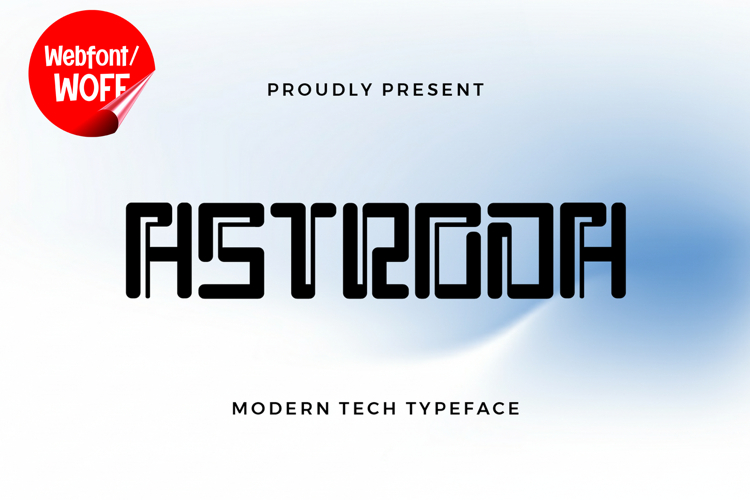
Astroda | Modern Futuristic Webfont for Sleek Digital Design
Astroda is a modern and futuristic webfont crafted to bring a sleek, innovative, and high-tech aesthetic into contemporary website design. Inspired by digital interfaces, space-age visuals, and forward-thinking design trends, this font features clean geometry and refined shapes that create a sharp and professional appearance. It is an excellent choice for projects that require a modern, minimal, and cutting-edge typographic style.
Astroda includes a complete set of uppercase characters designed with a futuristic structure. The letterforms are built with precise lines and balanced proportions, giving the font a clean and sophisticated look. These characteristics make it ideal for headlines, banners, hero sections, and featured content where clarity and visual impact are essential. The modern style helps establish a strong and organized visual hierarchy.
In addition to letters, the font includes numbers and punctuation, allowing flexible usage across various parts of a website. It works well for technology branding, product showcases, dashboards, user interfaces, and promotional content. Each character maintains a consistent futuristic style, ensuring a cohesive and unified visual identity throughout the layout.
With multilingual support, Astroda includes a wide range of accented characters, making it suitable for international websites and global audiences. This allows content to be displayed clearly across different languages while maintaining the clean and modern aesthetic.
The modern futuristic style of Astroda makes it especially suitable for tech startups, SaaS platforms, digital products, creative portfolios, and innovation-driven brands. Its sleek and minimal appearance adds a sense of precision and professionalism, helping websites stand out in competitive digital environments. The futuristic tone also enhances branding that focuses on advancement and innovation.
Despite its modern and structured appearance, Astroda is designed with readability in mind. The spacing and proportions are carefully balanced to ensure clarity, particularly in display sizes. This makes it effective for impactful headings and short content elements where both style and usability are important.
Astroda is a webfont that combines futuristic aesthetics with modern digital performance. Its clean lines, precise structure, and refined character create a distinctive typographic presence that enhances website design. For projects that require a sleek, modern, and innovative font, Astroda offers a reliable and visually engaging solution.